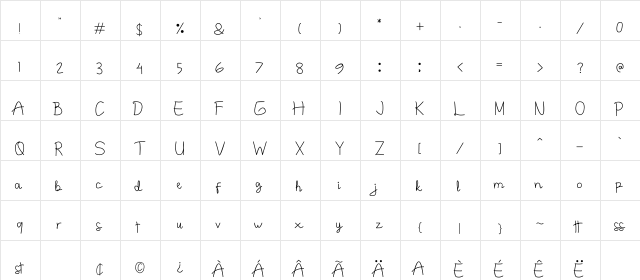
Junnita Regular
Design Context for Junnita Typeface
Junnita offers clean, dependable letterforms without strong stylistic allegiance, making it a practical choice for designers who need flexibility.